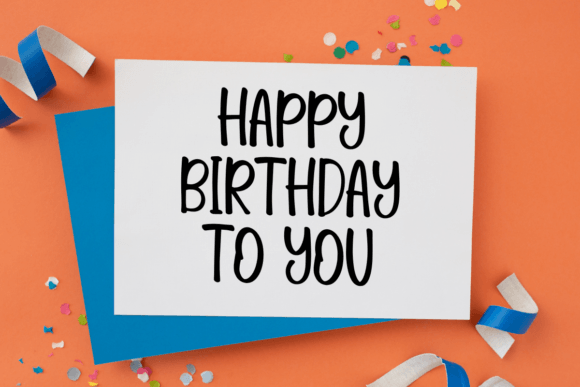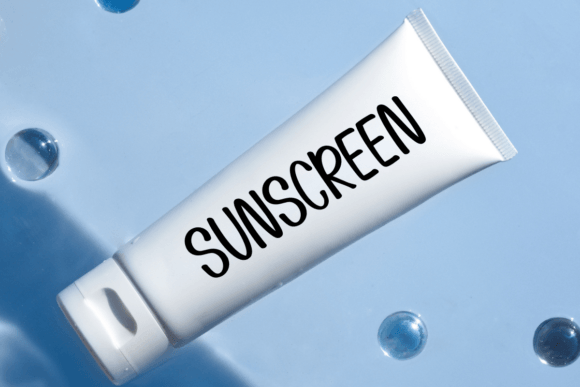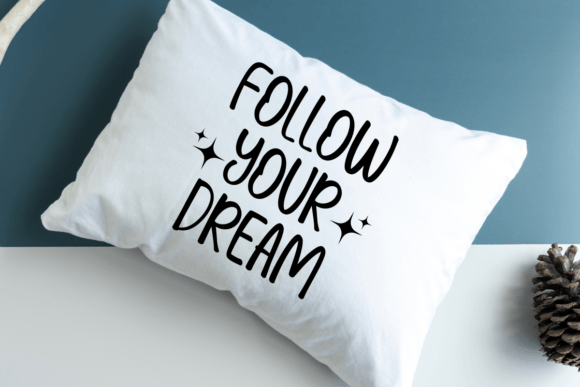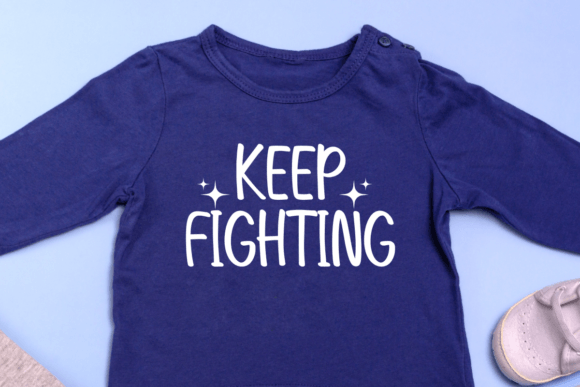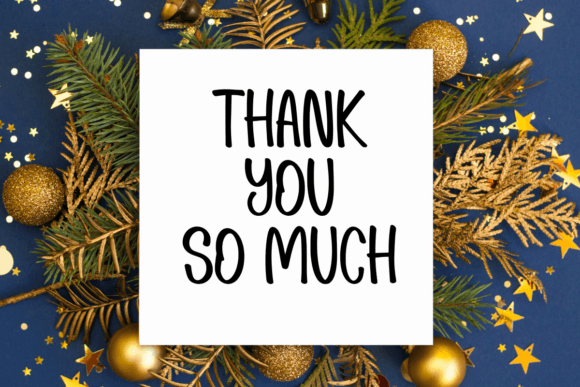
Unleashing the Fun in Typography
As designers, we’ve all had those moments when we’re stuck on a project, searching for the perfect font to bring our vision to life. You know, that spark of inspiration that makes everything click into place. For me, it was a design brief for a children’s book cover – I wanted a font that would capture the joy and playfulness of the story. That’s when I stumbled upon the Animal Tumbler Font, and I knew I had found my match.
This lively sans-serif font is a game-changer for designers looking to add a touch of whimsy to their designs. With its rounded edges and playful letterforms, the Animal Tumbler Font is perfect for branding, packaging, posters, and any project that needs a dose of creativity and cheerfulness.
Key Features of Animal Tumbler Font
- Font Family: Animal Tumbler Font comes in a single font family, offering a unique and playful look for various designs.
- Character Set: The font includes a wide range of characters, including uppercase and lowercase letters, numbers, and punctuation marks.
- Unique Characteristics: The font features a hand-drawn design with irregular shapes and lines, giving it a distinctive, whimsical feel.
Review of Animal Tumbler Font
Overall, I’m impressed with the creativity and playfulness of the Animal Tumbler Font. It’s perfect for designing kids’ products, educational materials, or any project that needs a fun and quirky vibe. Here are some of its strengths:
- ✨ Unique and creative animal designs: The font features a wide range of adorable animals that will add a personal touch to any project.
- ✨ High-resolution graphics: The font is available in high-resolution, making it suitable for various printing and digital applications.
- ✨ Customizable: The font can be customized to fit different project needs, including color, size, and layout.
However, I do have some concerns:
- ⚠️ Limited font options: While the animal designs are creative, the font styles are relatively limited, which might not be ideal for projects that require multiple font styles.
- ⚠️ Not suitable for formal projects: The playful nature of the font might not be suitable for formal projects or those that require a more professional tone.
Overall, I think the Animal Tumbler Font is a great addition to any designer’s toolkit. It’s perfect for projects that need a fun and creative touch. However, it might not be the best choice for projects that require a more formal or professional tone.
Animal Tumbler Font is ideal for creating custom t-shirts, hoodies, and other apparel designs. You can also use it for social media graphics, posters, and flyers. To get the most out of it, use it with bold colors and playful graphics to create eye-catching designs. Experiment with different font sizes and styles to add depth to your designs.